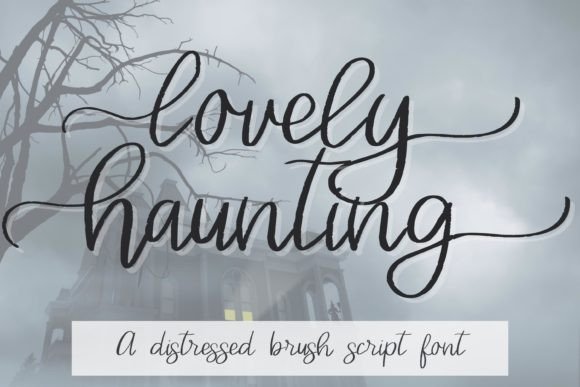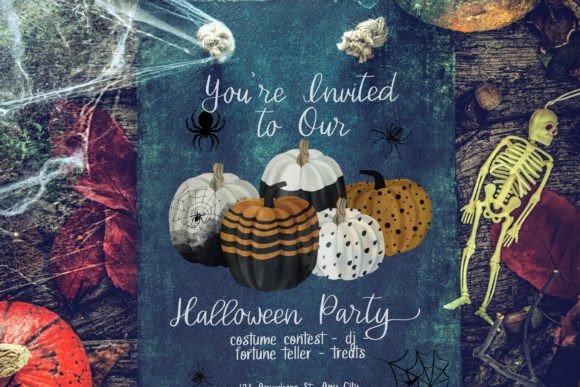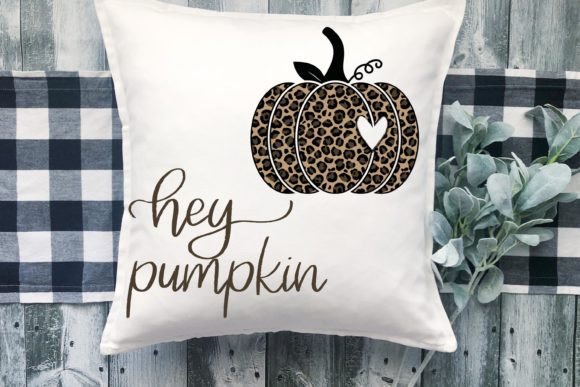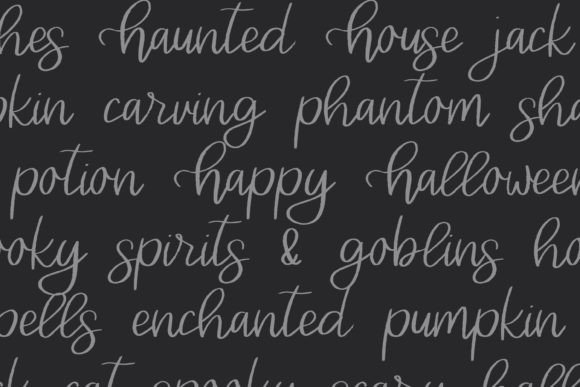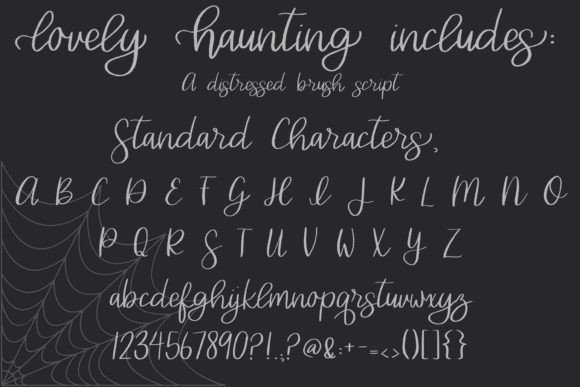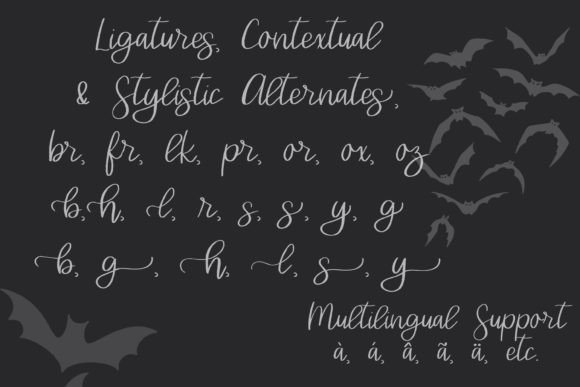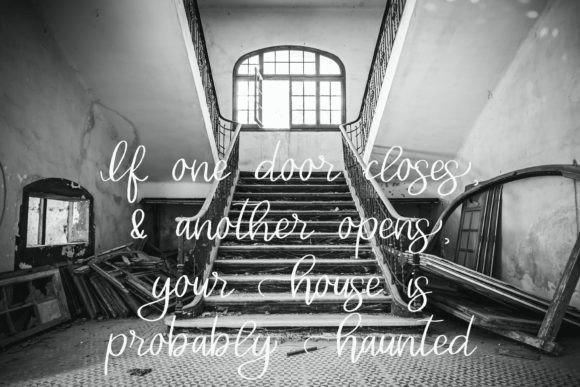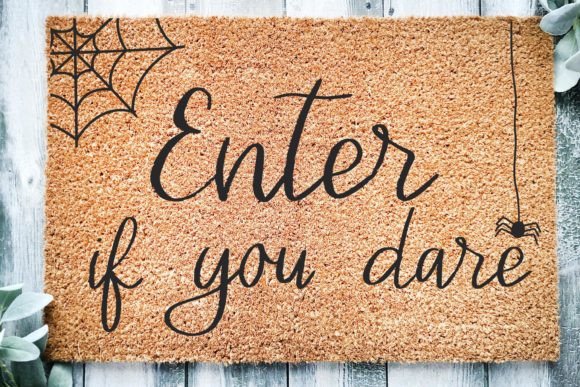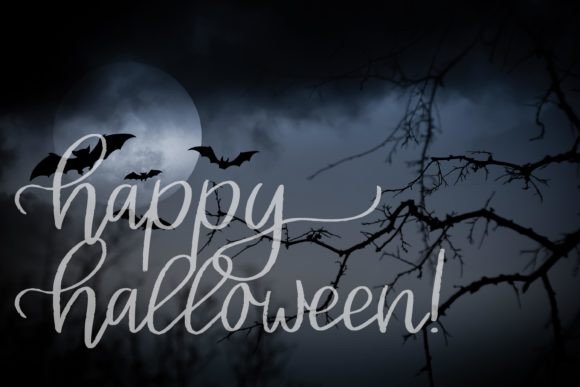
Lovely Haunting Font
About Lovely Haunting Font
“Lovely Haunting” is a distinctive distressed brush script font designed with elegant contextual and stylistic ligatures. This font is particularly well-suited for Halloween-themed projects and adds a touch of spooky charm to your designs. Whether you’re working on Halloween invitations, greeting cards, stickers, social media graphics, or any crafting project with a Halloween theme, “Lovely Haunting” can be the perfect choice.
The distressed and brush-style elements of the font give it a unique and haunting appearance, making it ideal for creating a mysterious and atmospheric ambiance in your designs. The contextual and stylistic ligatures offer creative options for enhancing the overall look of your text, allowing you to experiment and craft customized letter combinations.
The font is PUA encoded, which means you have easy access to all the special glyphs and ligatures. This feature enables you to seamlessly incorporate unique characters and stylistic variations into your designs, giving you more creative freedom when working with “Lovely Haunting.”
In summary, “Lovely Haunting” is a versatile font that combines distressed brush script elements with elegant ligatures, making it an excellent choice for Halloween-themed projects and other designs that require a spooky and mysterious aesthetic. Its PUA encoding ensures accessibility to a wide range of creative options, allowing you to achieve the perfect haunting look for your designs.